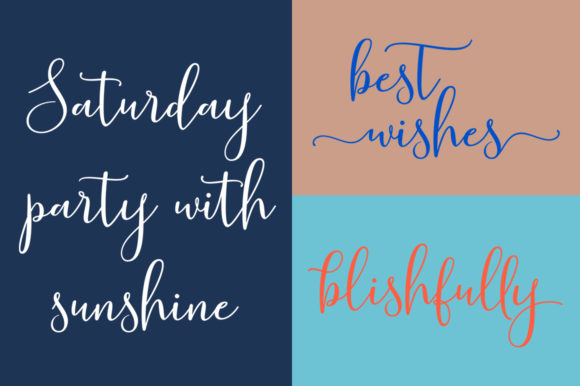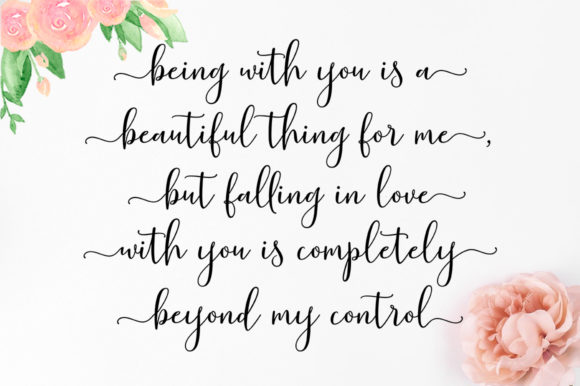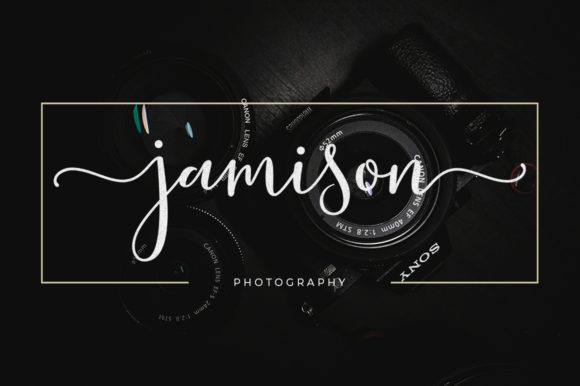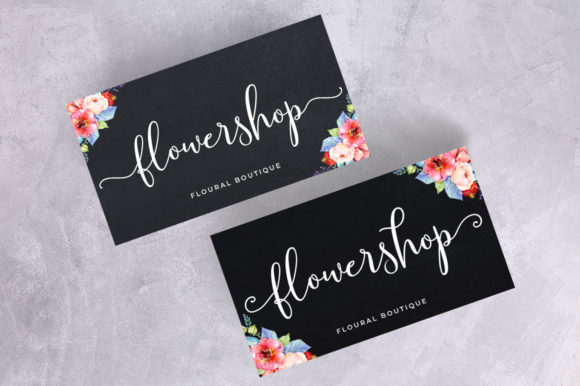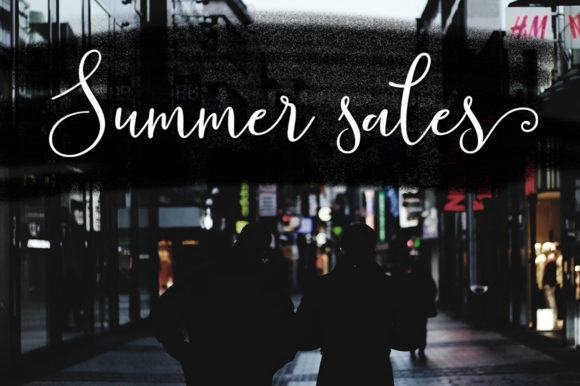
Introduction to Lamplinght Font
Lamplinght is a gorgeous and fun script with beautiful swashes.
This swirly font will turn any craft idea into a masterpiece .
Key Features of Lamplinght Font
Why Choose Lamplinght Font?
Lamplinght Font offers exceptional quality and versatility, making it a valuable addition to your design toolkit. Whether you’re creating for personal projects or commercial use, Lamplinght Font delivers professional results.